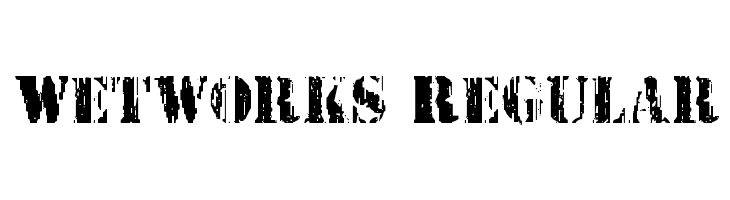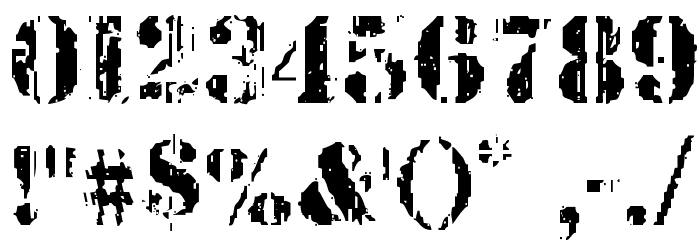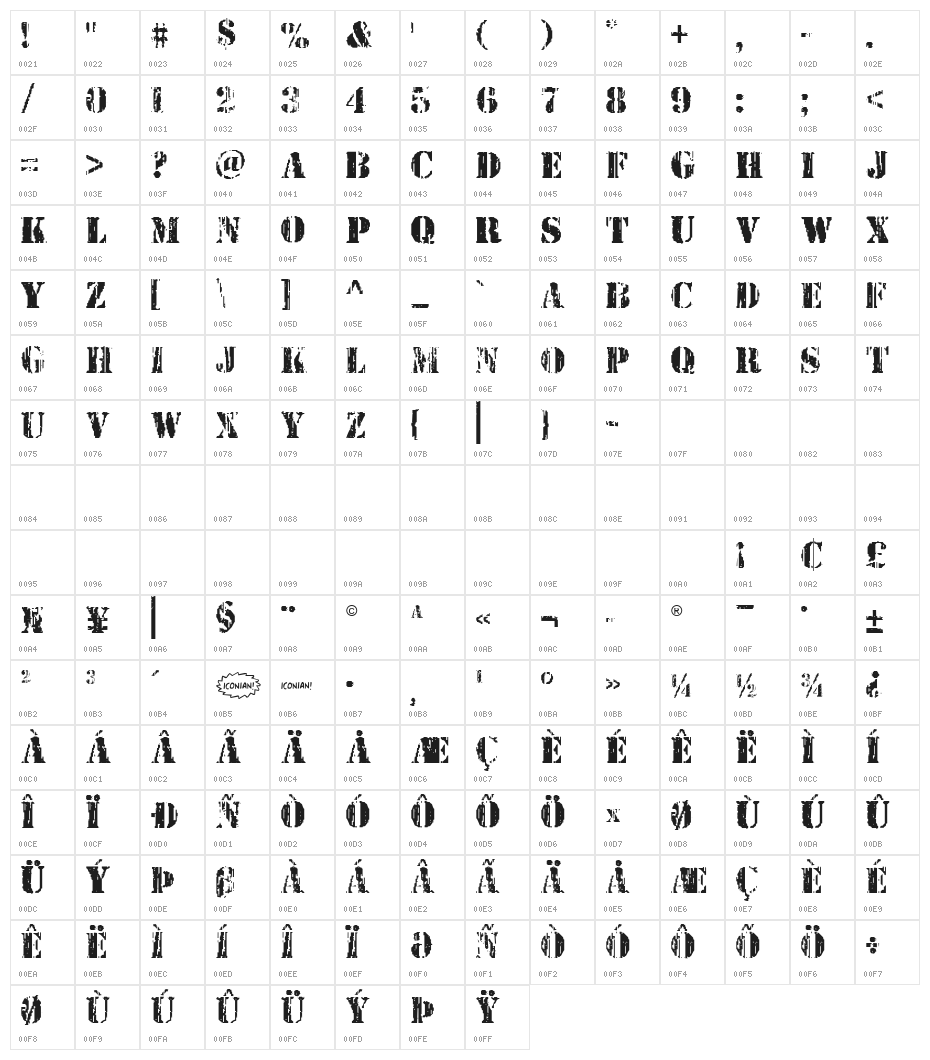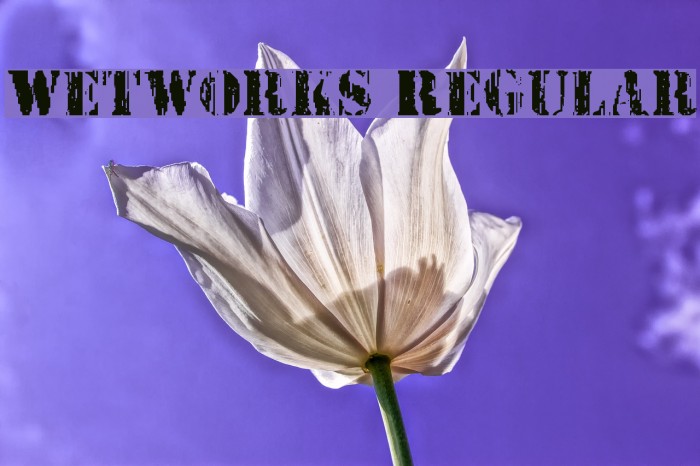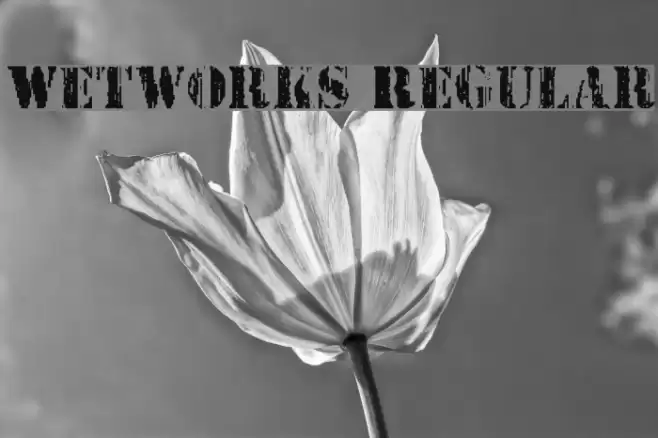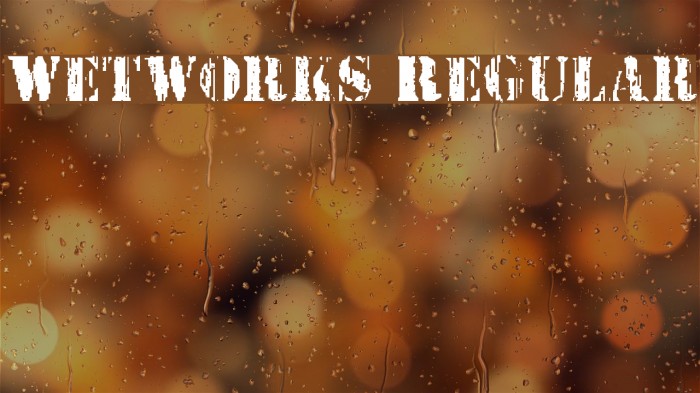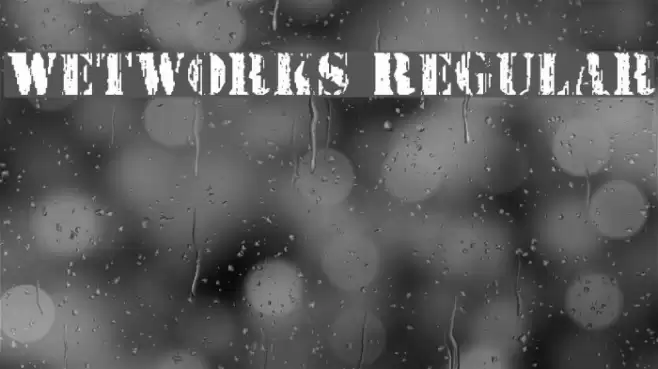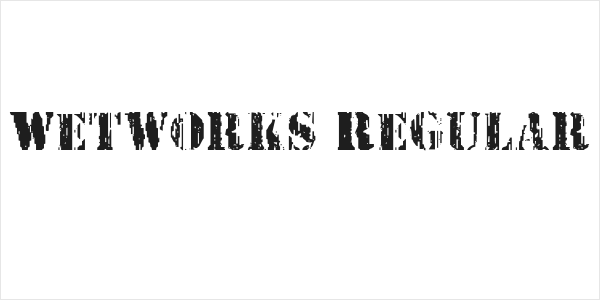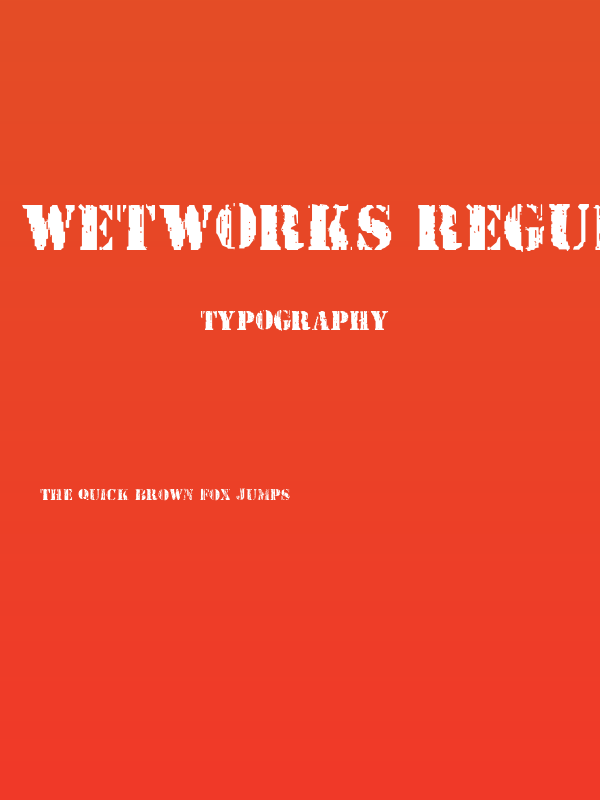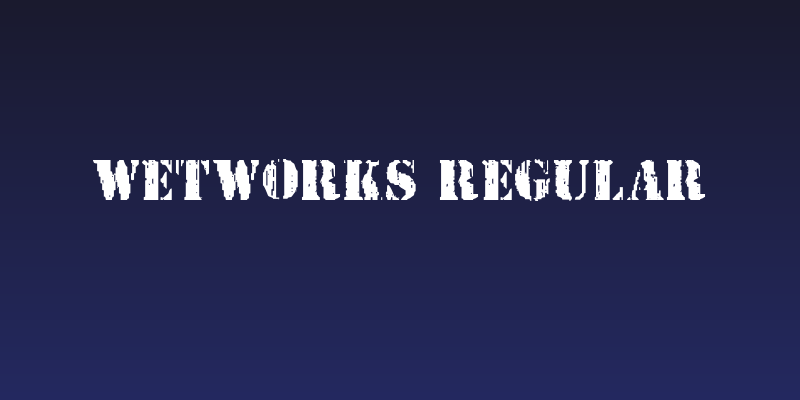
Wetworks Regular Font
Wetworks Regular Description
This font features a bold, distressed style with a stencil-like appearance. The characters are heavily textured, giving them a rugged and worn look, reminiscent of graffiti or urban art. The uppercase and lowercase letters maintain a consistent design, with sharp edges and a blocky structure. Numbers and special characters follow the same aesthetic, ensuring uniformity across all glyphs. The font's unique style makes it stand out, ideal for projects that require a gritty, industrial feel.
| Proposed Projects | Ideal for posters, album covers, streetwear branding, and urban-themed designs. |